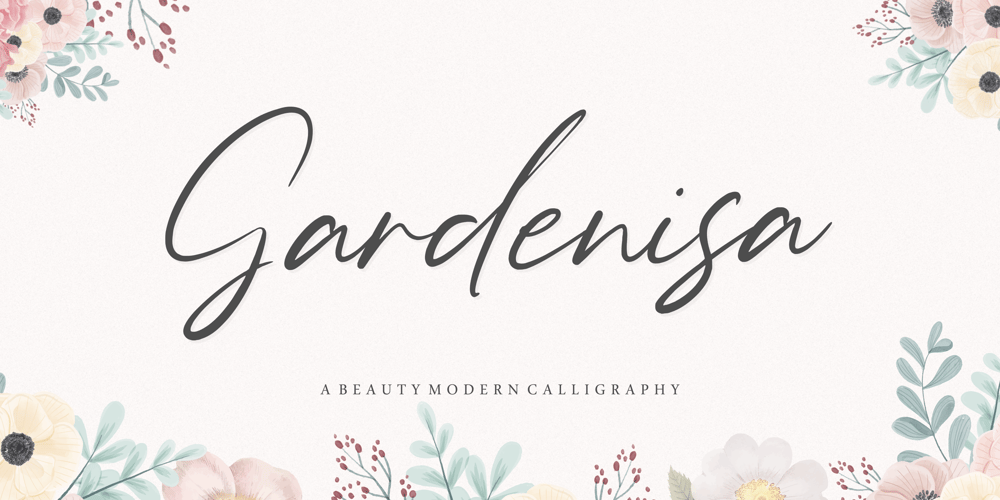
Gardenisa Font Family was designed by Restu Angga and published by Balpirick. Gardenisa contains 1 styles and family package options. Gardenisa is a stylish and incredibly distinct script font. It looks stunning on wedding invitations, thank you cards, quotes, greeting cards, logos, business cards and every other design which needs a handwritten touch.